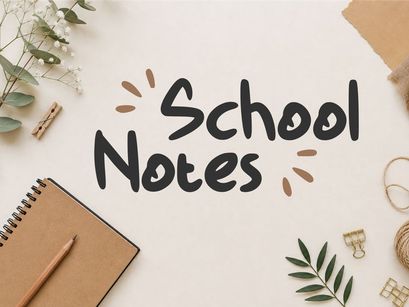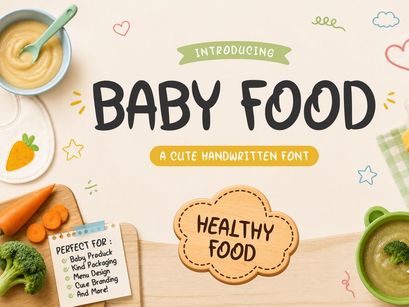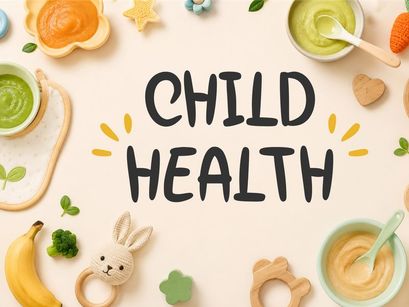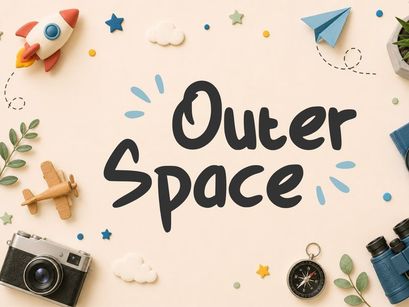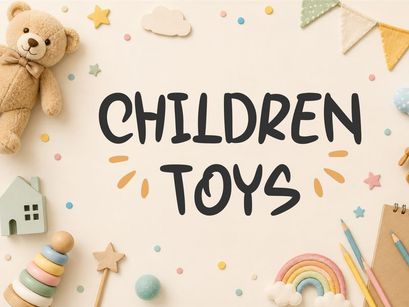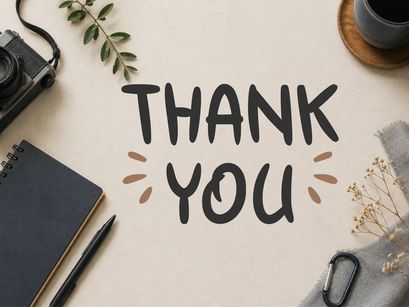
Baby Food – Cute Handwritten Font is a fun, playful, and charming handwritten display font designed to bring a warm and cheerful personality to your creative projects. With its bold, rounded shapes and natural hand-drawn feel, Baby Food is perfect for designs that need a friendly, youthful, and approachable look.
Ideal for baby products, children’s books, kids’ branding, food packaging, nursery designs, menus, labels, posters, invitations, stickers, social media graphics, and playful logos. Its expressive character also works beautifully for school projects, children’s activities, cute merchandise, and creative advertising.
Baby Food is a great choice when you want your typography to feel cute, joyful, handmade, and memorable.